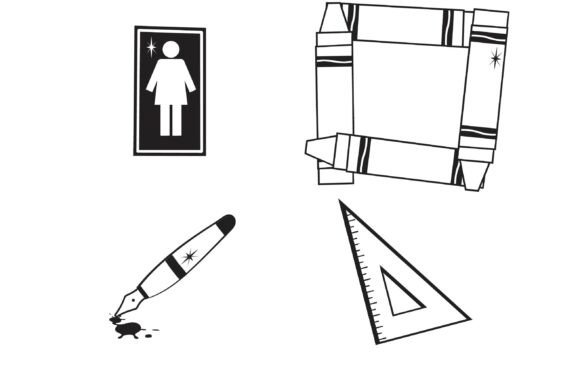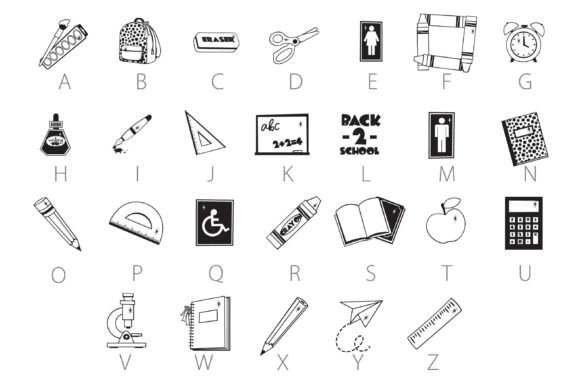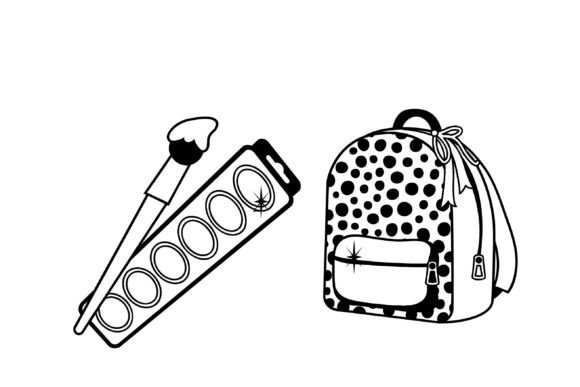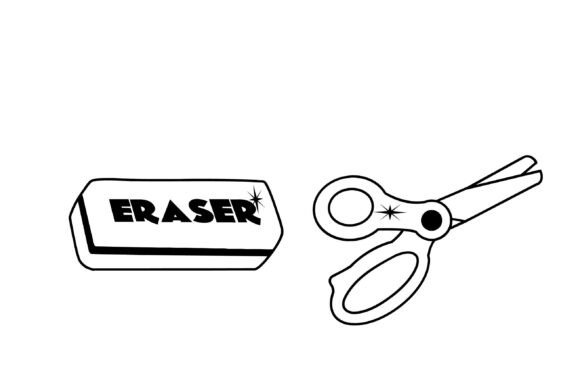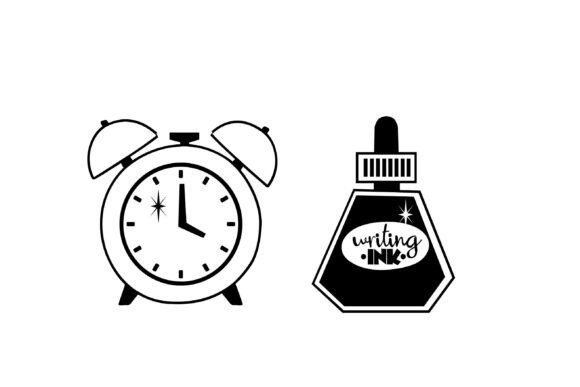
Introduction to Happy Hues School Dingbats Font
Happy Hues School | Academic Icon & Dingbat Set Embrace the creative energy of the classroom with Happy Hues School, an academic-themed collection of icons and dingbats designed for inspired learning.
This set features meticulously illustrated school supplies, including patterned backpacks, vintage ink wells, geometric rulers, and classic chalkboard motifs With its โcreative-curiosityโ soul and professional graphic weight, Happy Hues School is the premier choice for independent teacher resources, vibrant educational branding, boutique school-supply labels, and engaging academic social media headers.
Key Features of Happy Hues School Dingbats Font